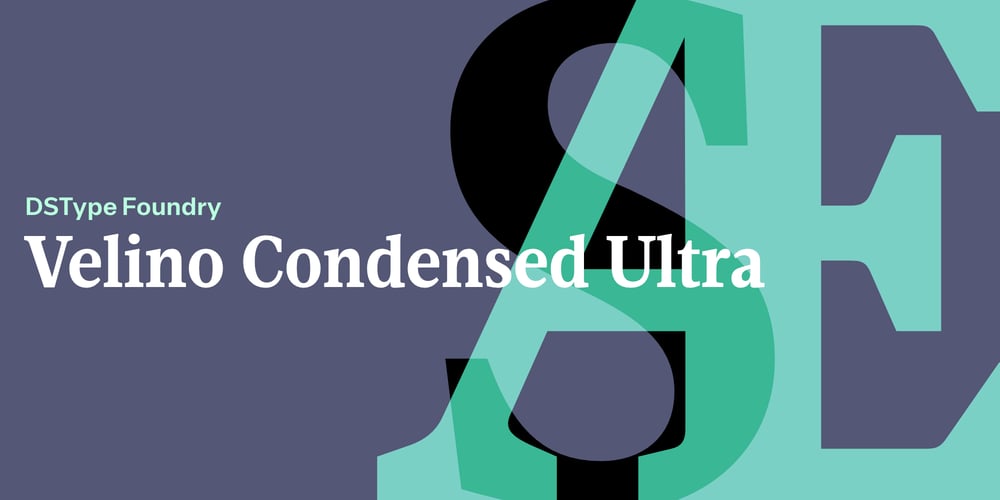
Velino Condensed Ultra Font Family was designed by Dino dos Santos and published by Monotype. Velino Condensed Ultra contains 6 styles and family package options. Velino is one of our most complete type families. The serif version comes in two packages with three widths: Velino, Velino Condensed, and Velino Compressed. The display package contains high-contrast typefaces, with a modern flair—very feminine but with plenty of character, specially designed for fine print in big text sizes. The text package was designed for any running text. Its proportions and colors make it ideal for text, even in very difficult conditions such as newspaper printing. We also designed the perfect companion to this enormous type system: Velino Poster, a slab serif typeface with only one weight and its respective italic, but with plenty of muscle, for every time some extra strength is needed, such as setting very big text, magazine covers or newspapers’ special sections. Finally, we designed Velino Sans and Velino Sans Condensed to perfectly match the weight and proportions of Velino, all with matching italics.